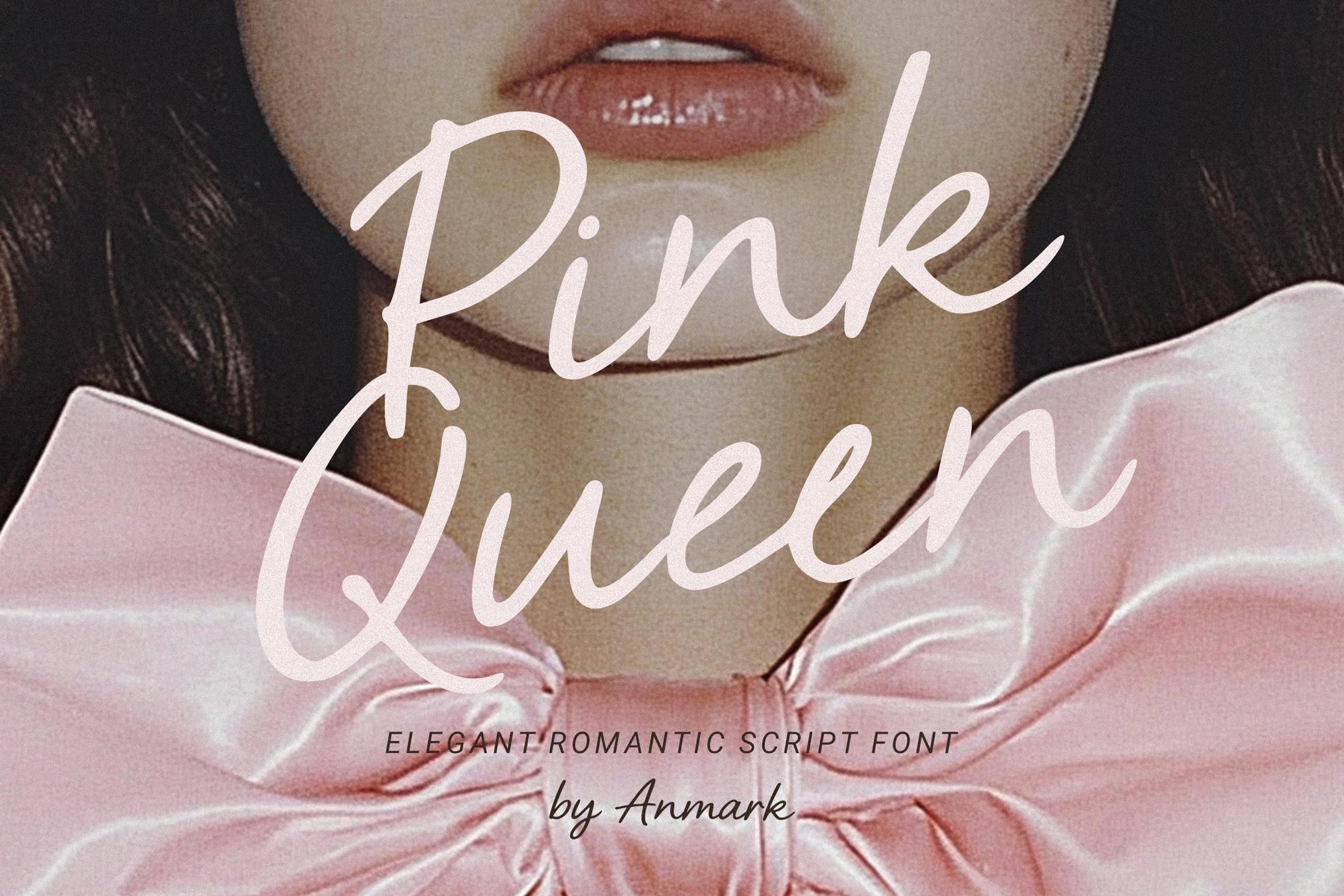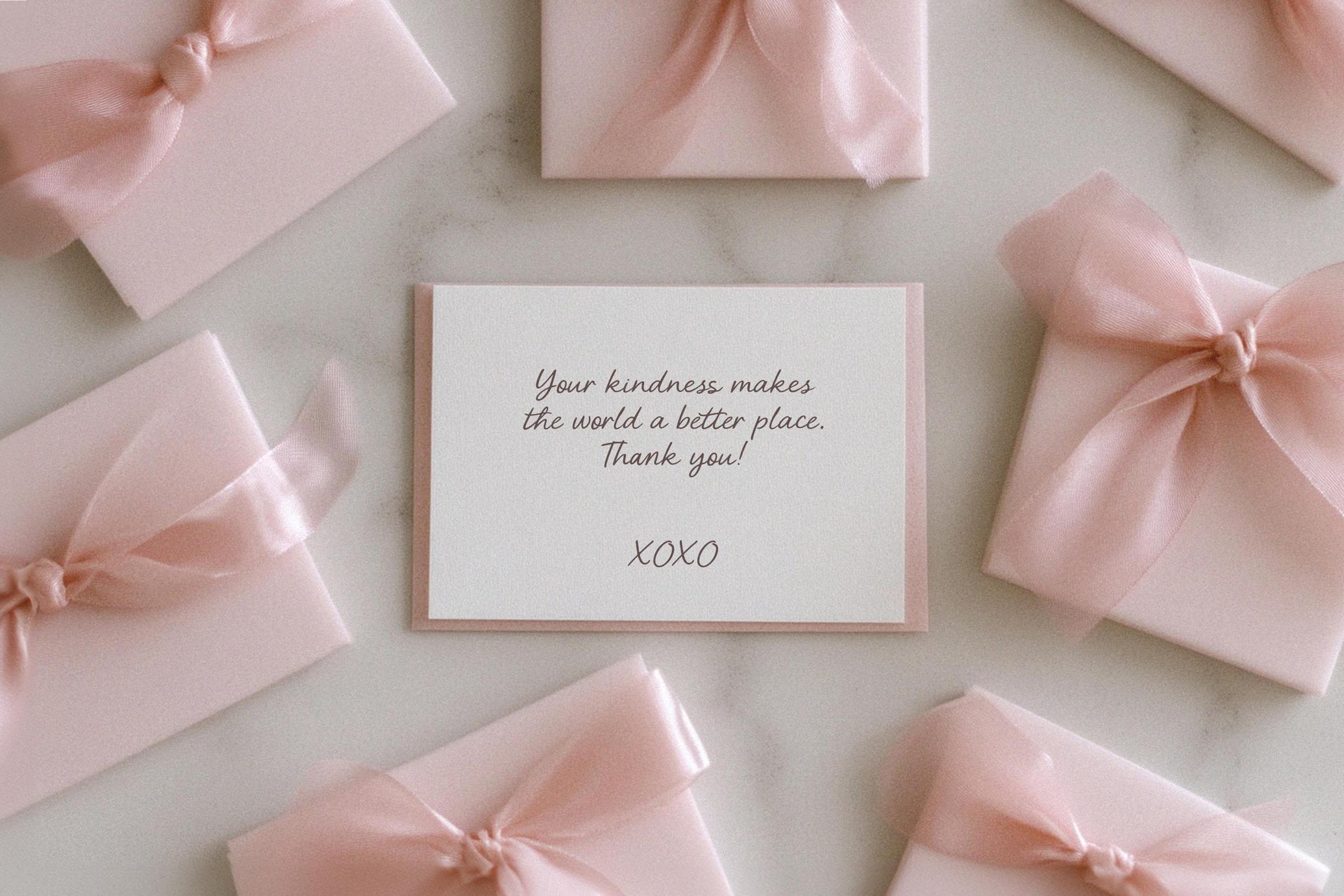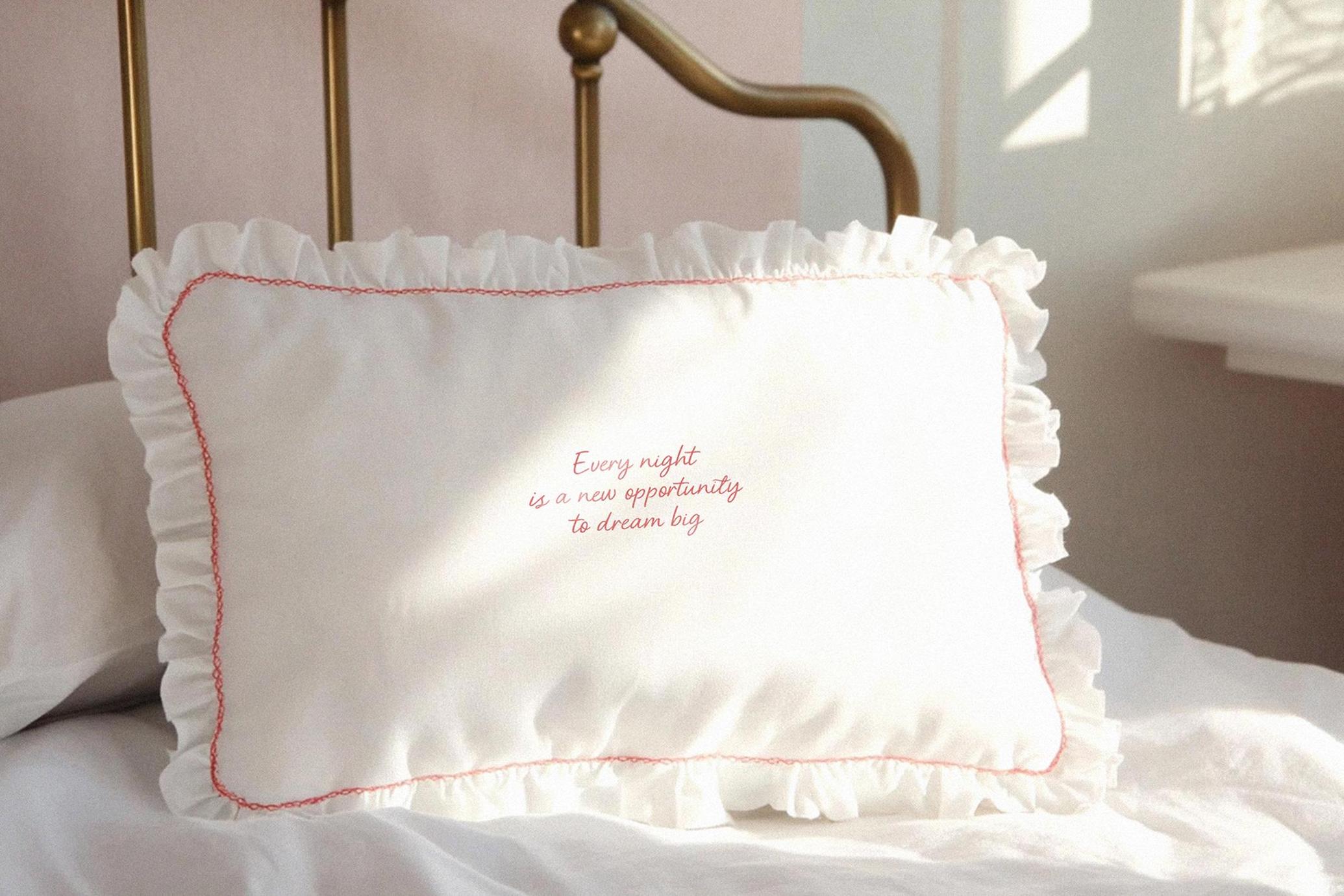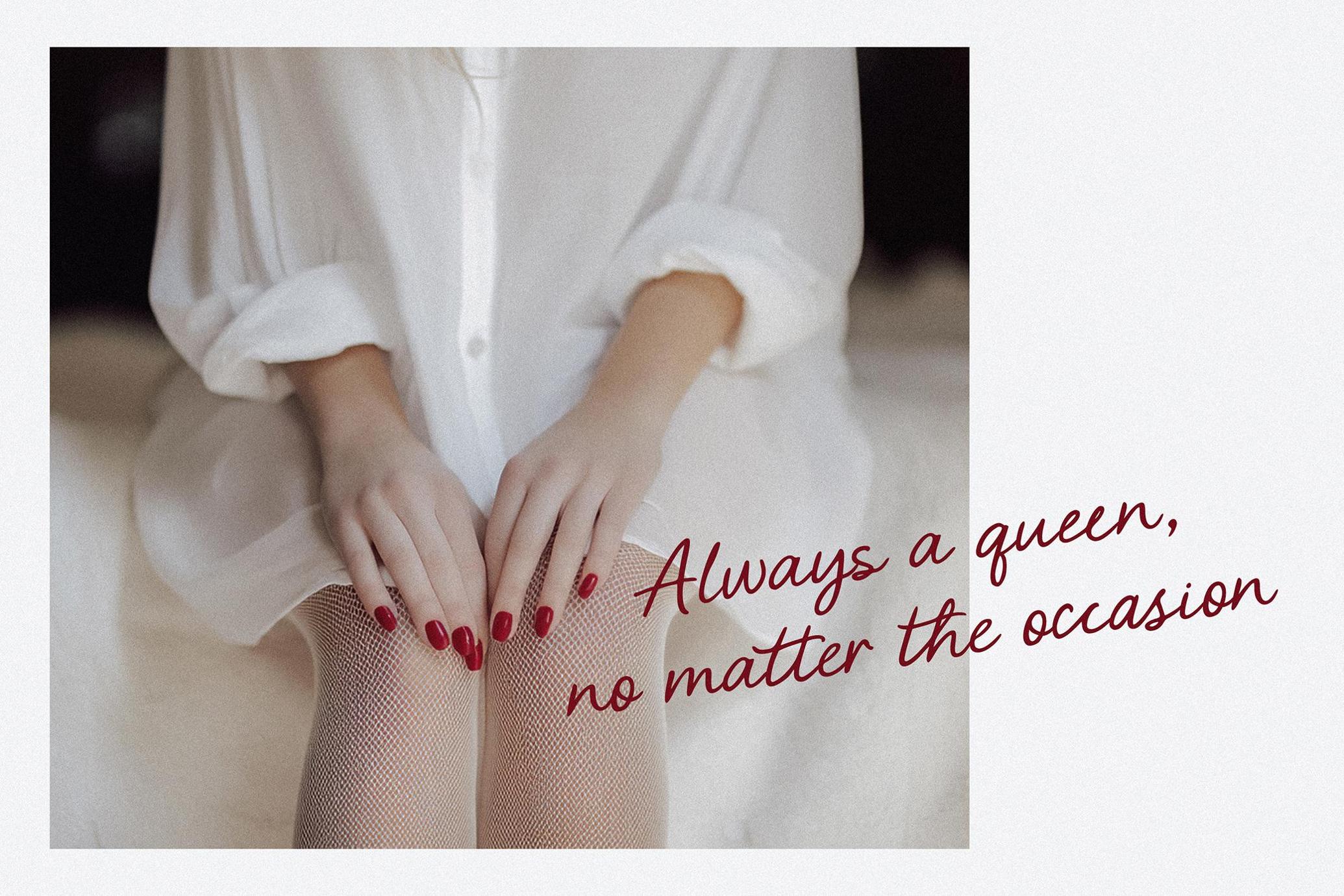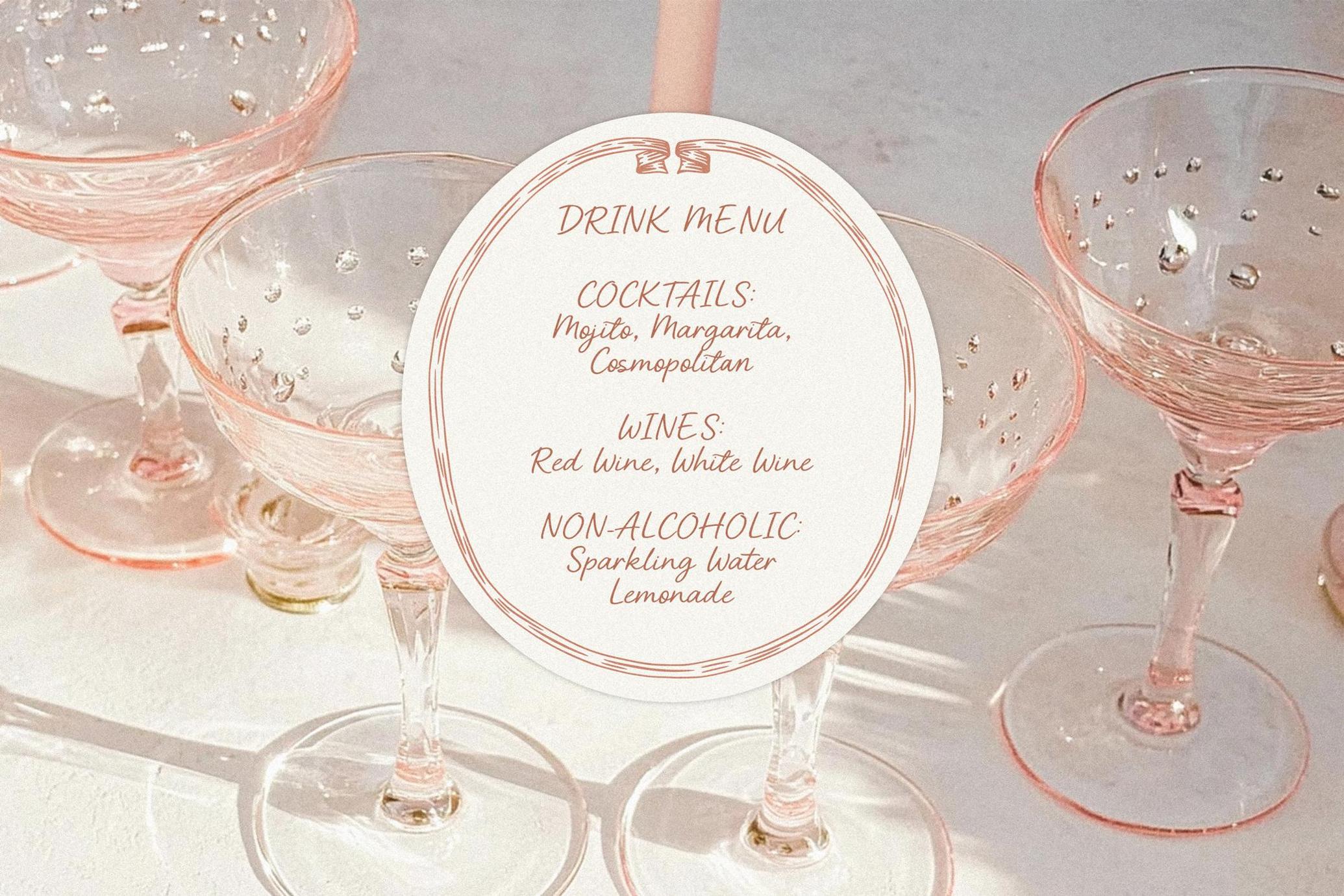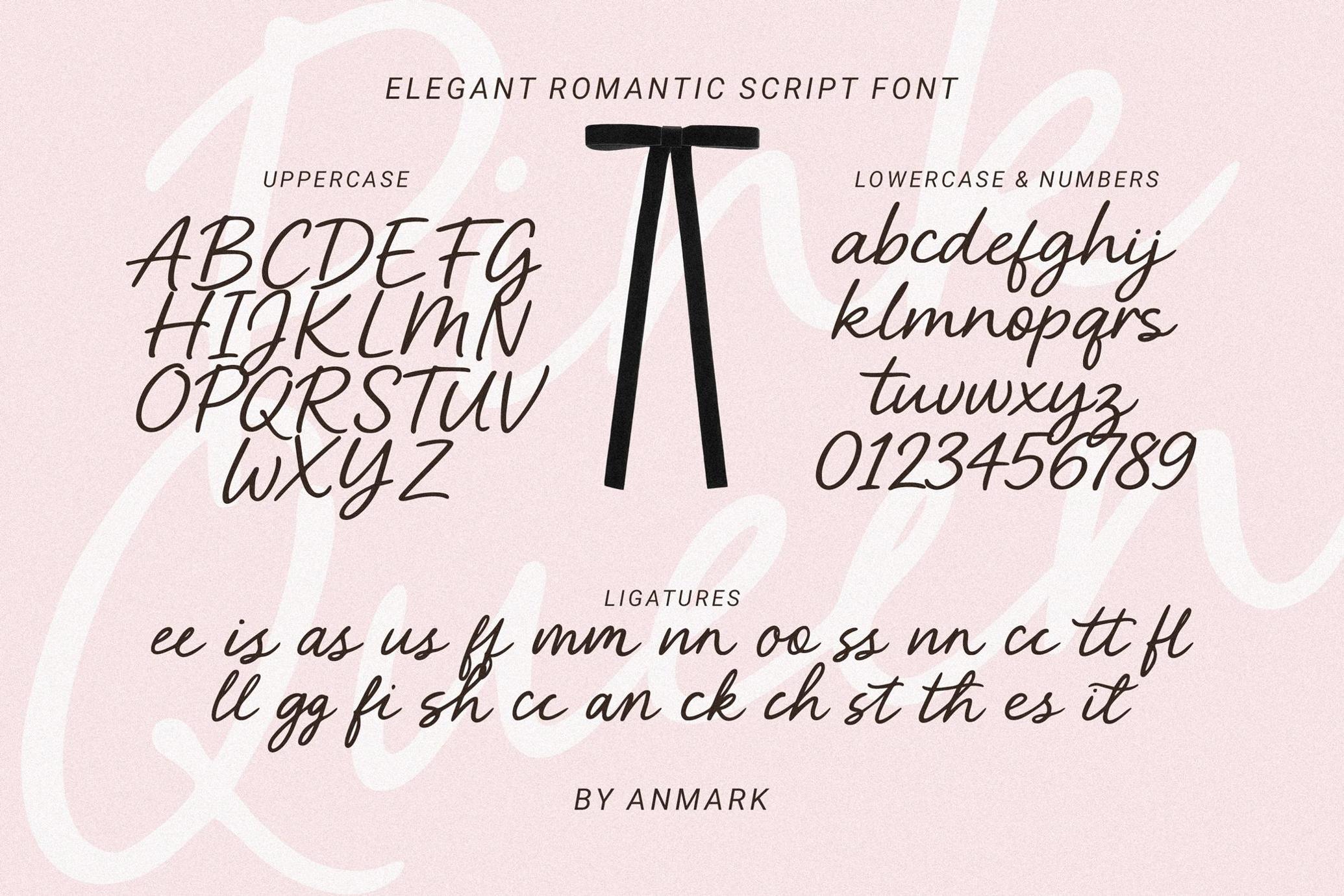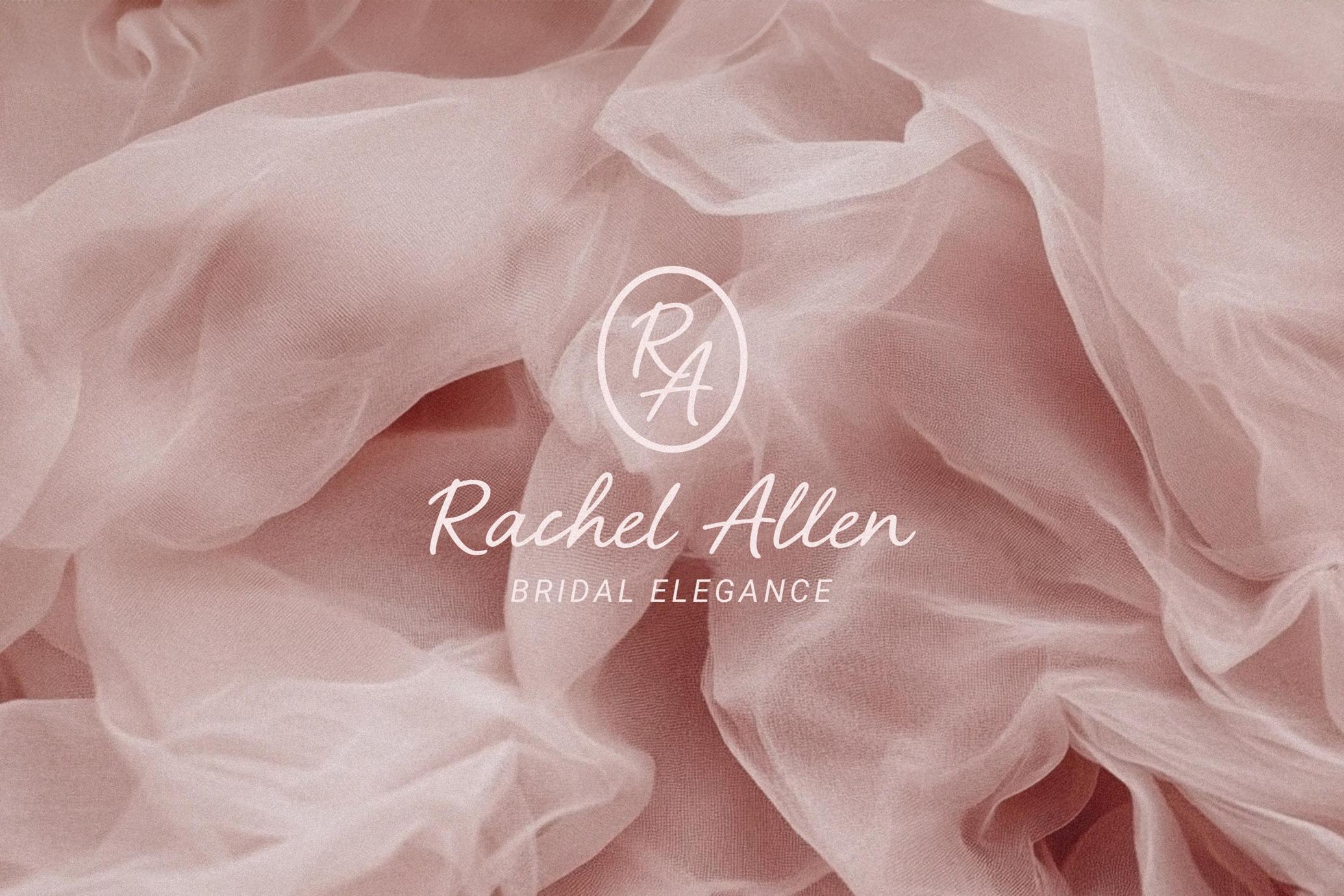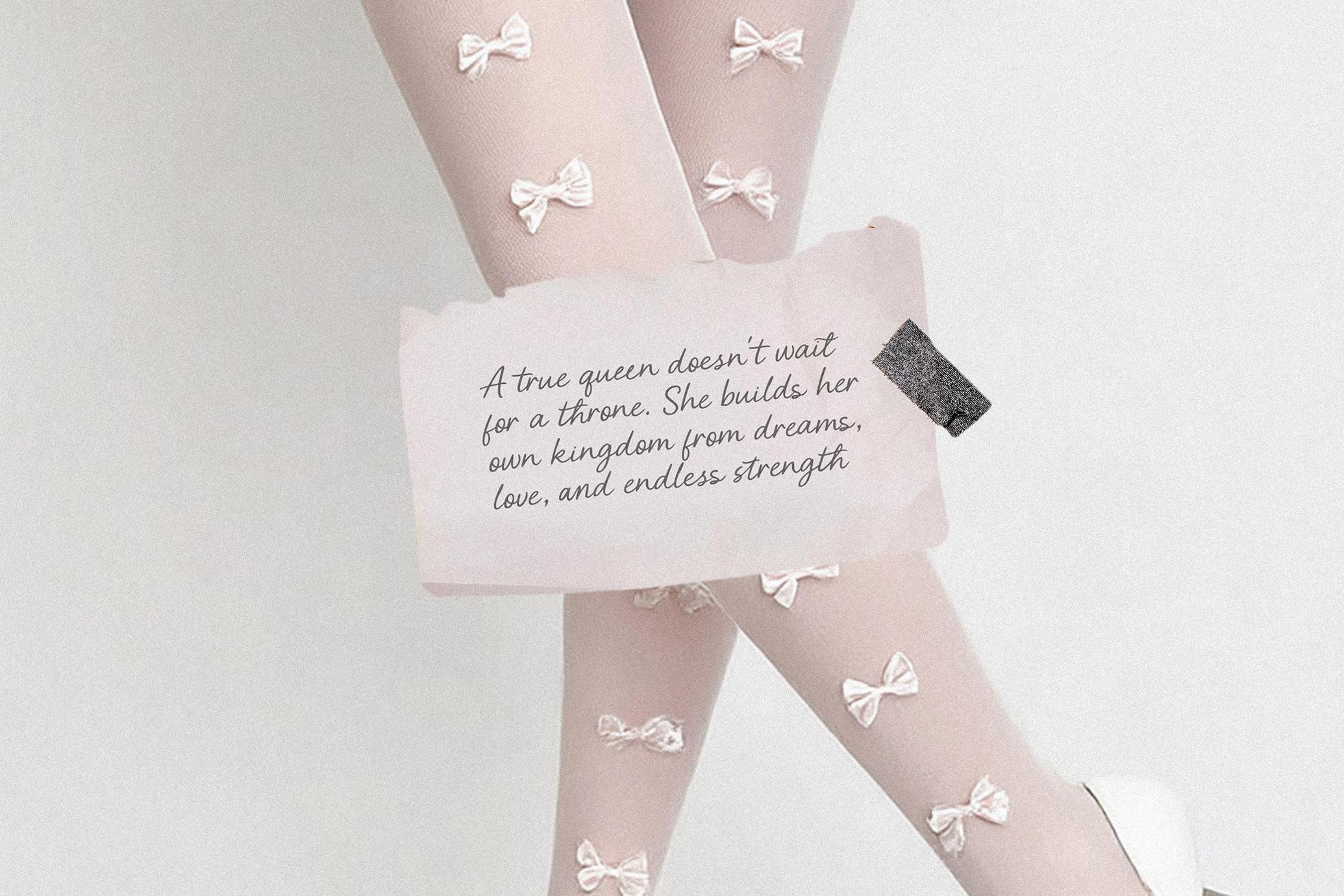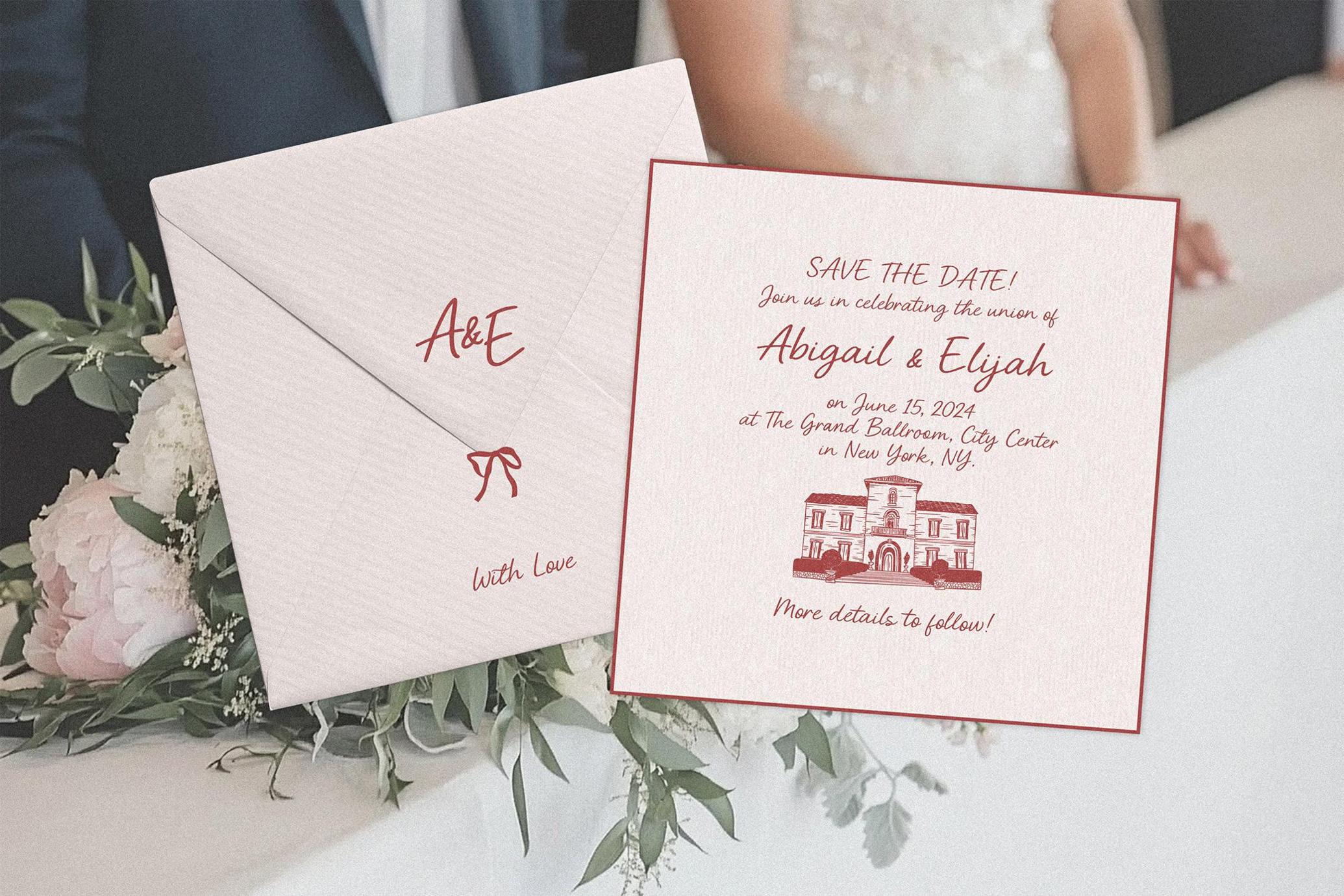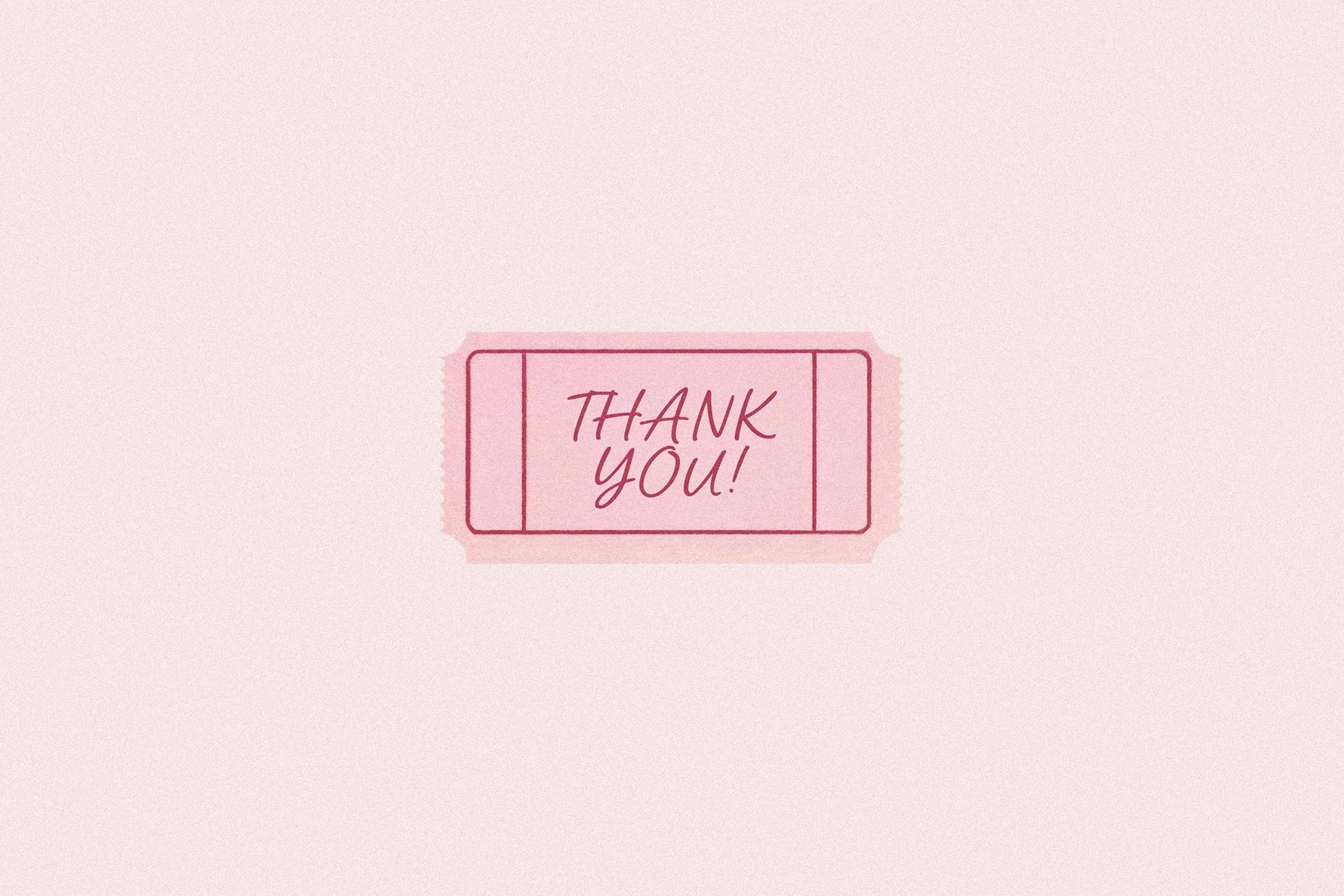
Pink Queen | Elegant Romantic Script
Pink Queen is a handwritten script with an eye for elegance and a deliberate softness. The letters feel personal — carefully inked with gentle curves and long, airy connections that nod to classic calligraphy. It includes uppercase, lowercase, numbers, punctuation, and a generous array of ligatures (ee, ff, mm, ck, th, etc.), supporting a natural handwritten look. Multilingual support is also built in.
The font brings a distinct femininity to wedding suites, bridal editorials, upscale event branding, and boutique logos. Its smooth ligature set allows for fluid word shaping, helping each phrase feel more custom. Think vow books, silk hang tags, welcome signage, handwritten-style menus, keepsake prints, elegant journaling headers, and social posts.